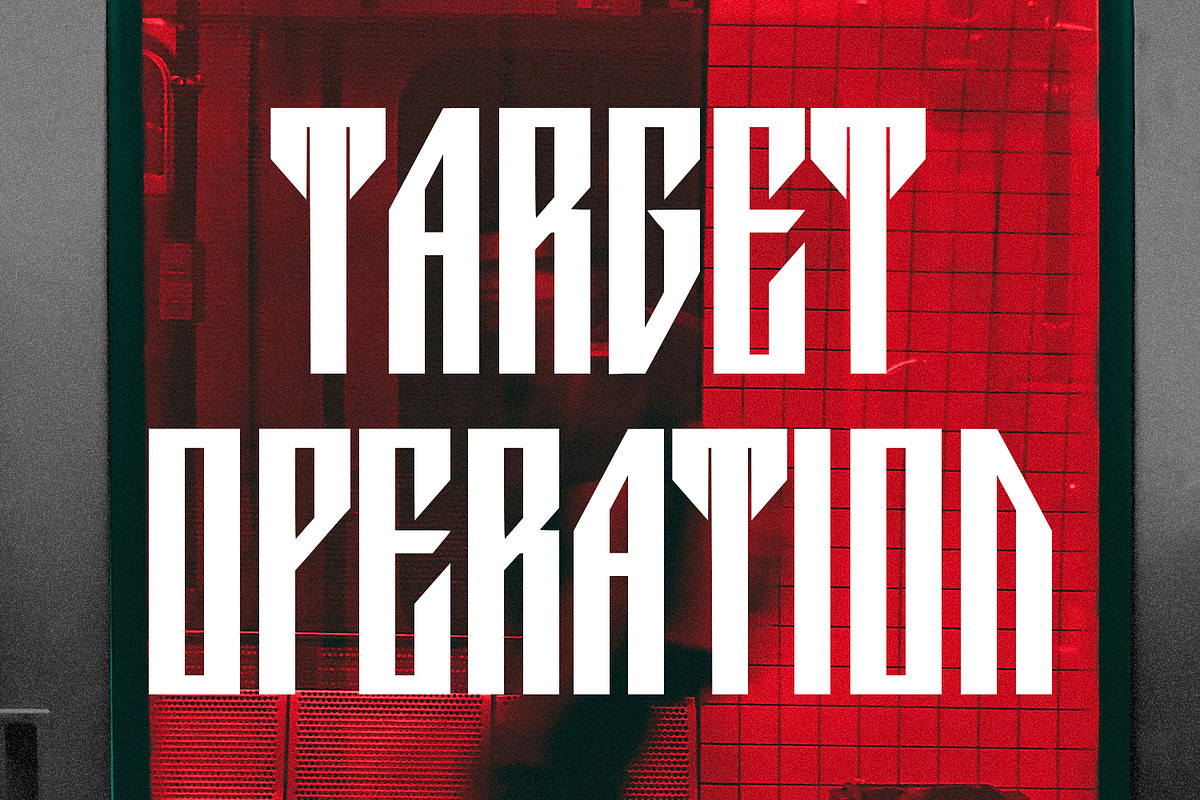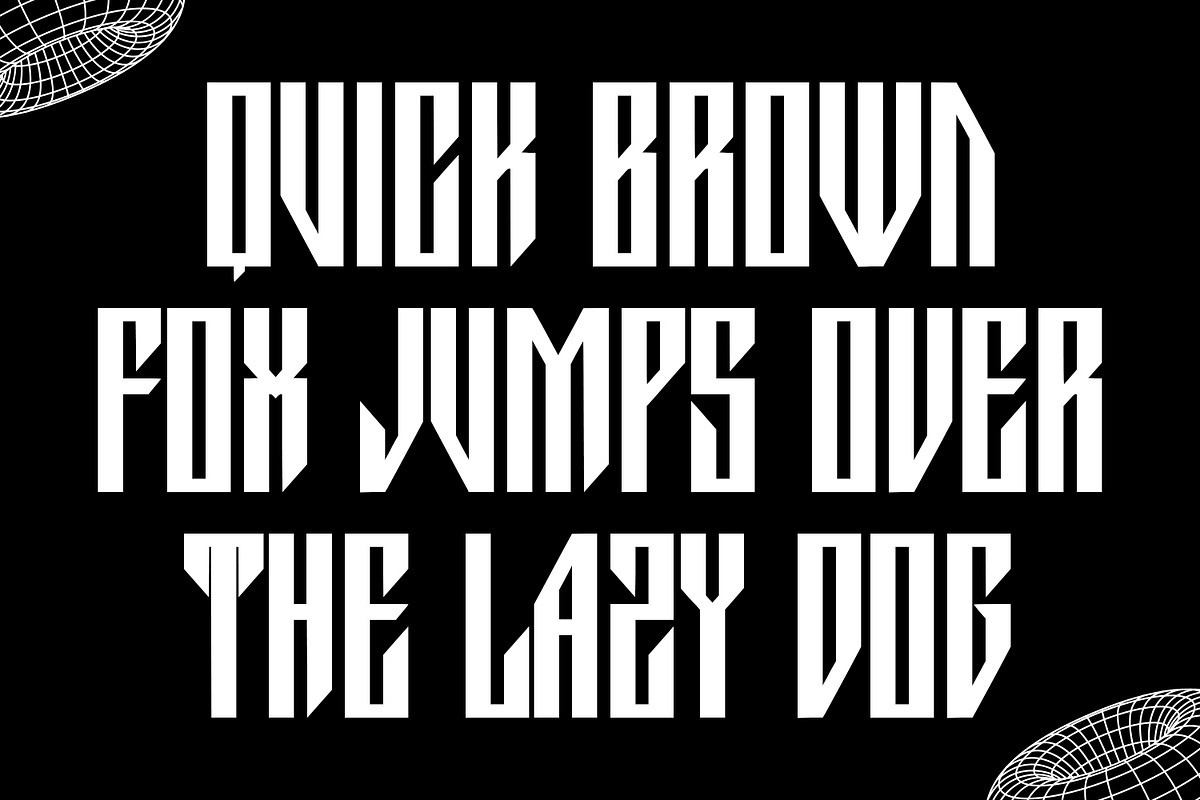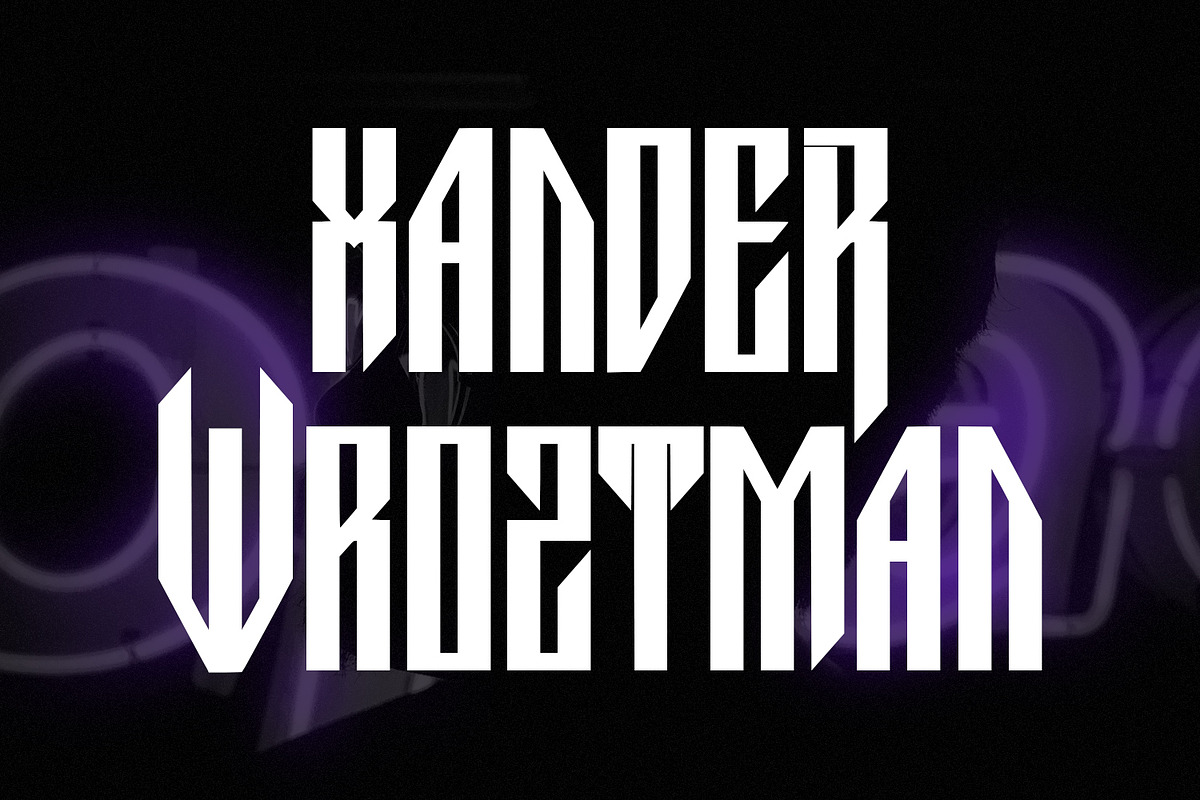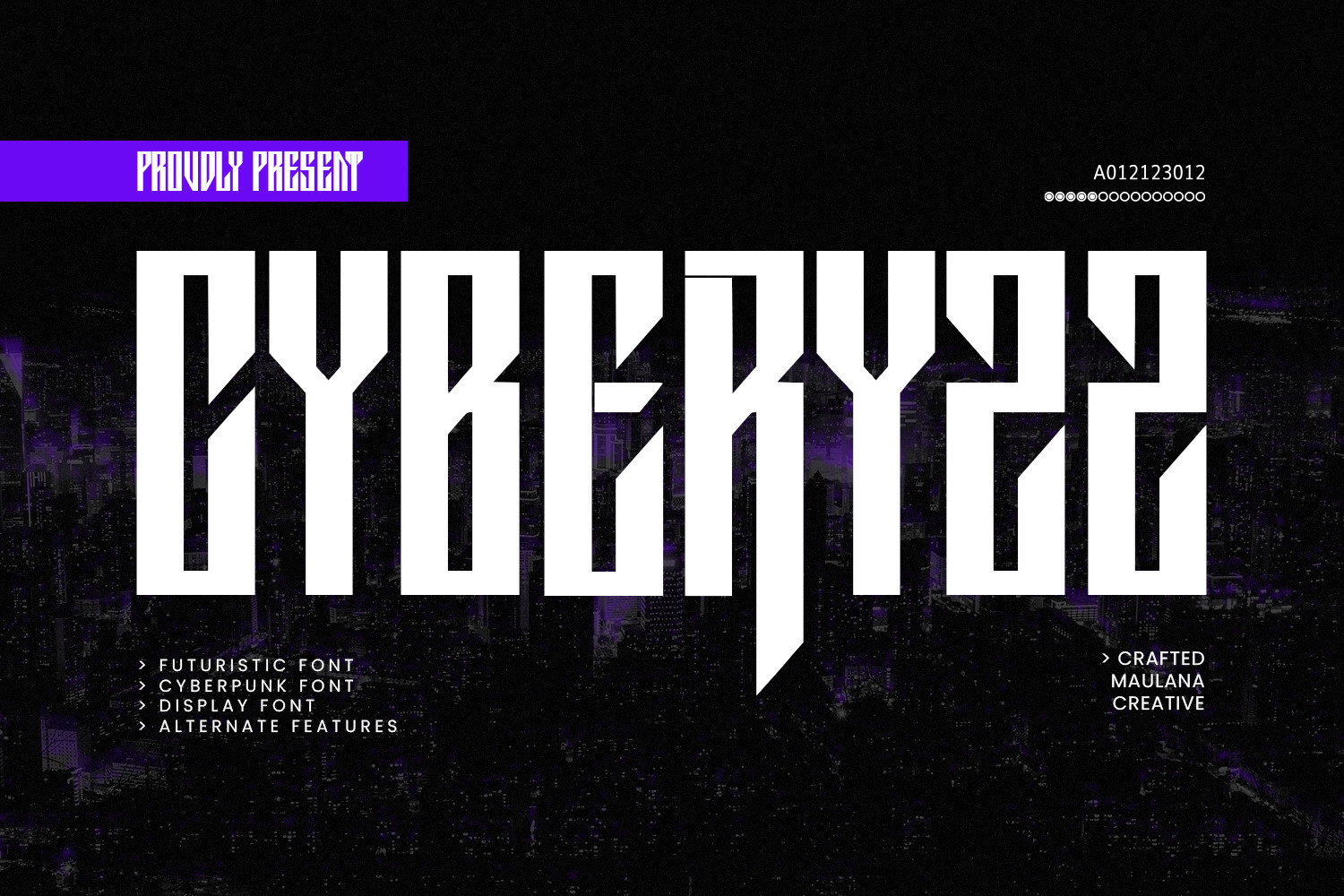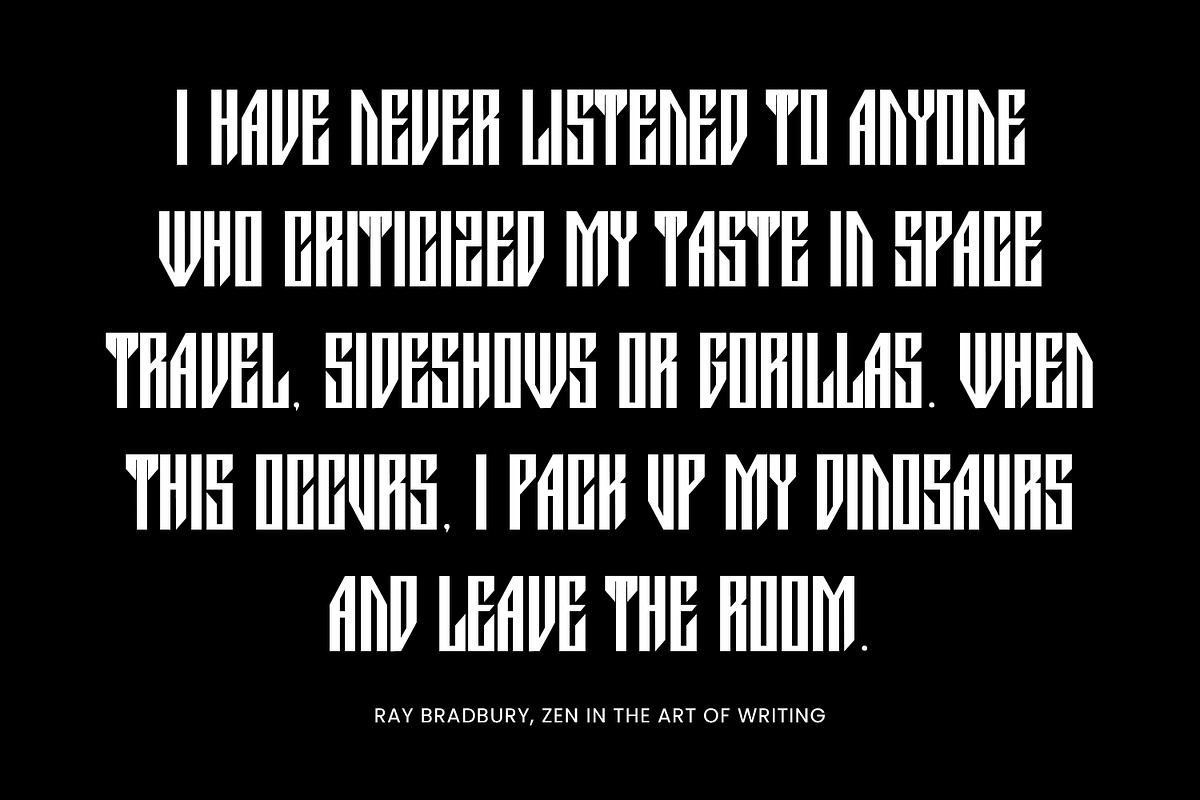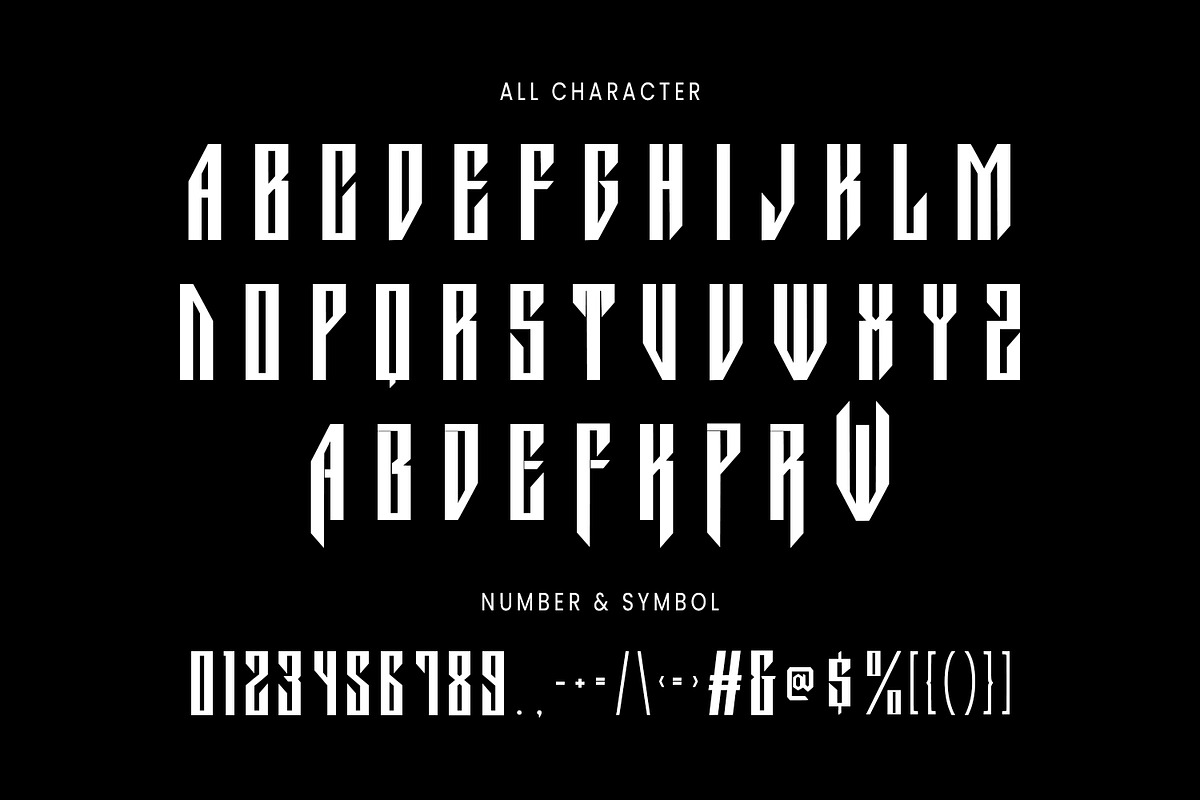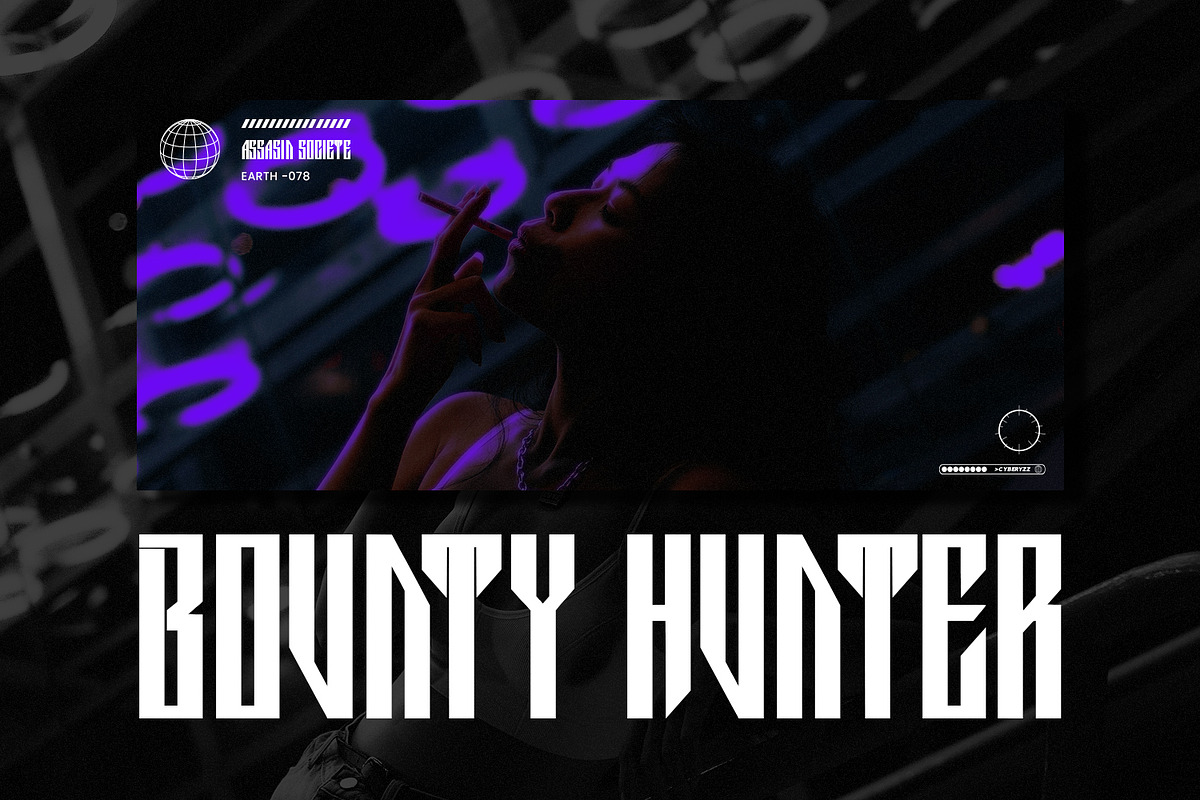
Cyberyzz Futuristic Font
Cyberyzz is a futuristic display font. With bold tall and rounded stroke, fun character with alternates. To give you an extra creative work. Cyberyzz font support multilingual language. This font is good for logo design, Social media, Movie Titles, Books Titles, a short text even a long text letter and good for your secondary text font with sans or serif. Make a stunning work with Cyberyzz font.